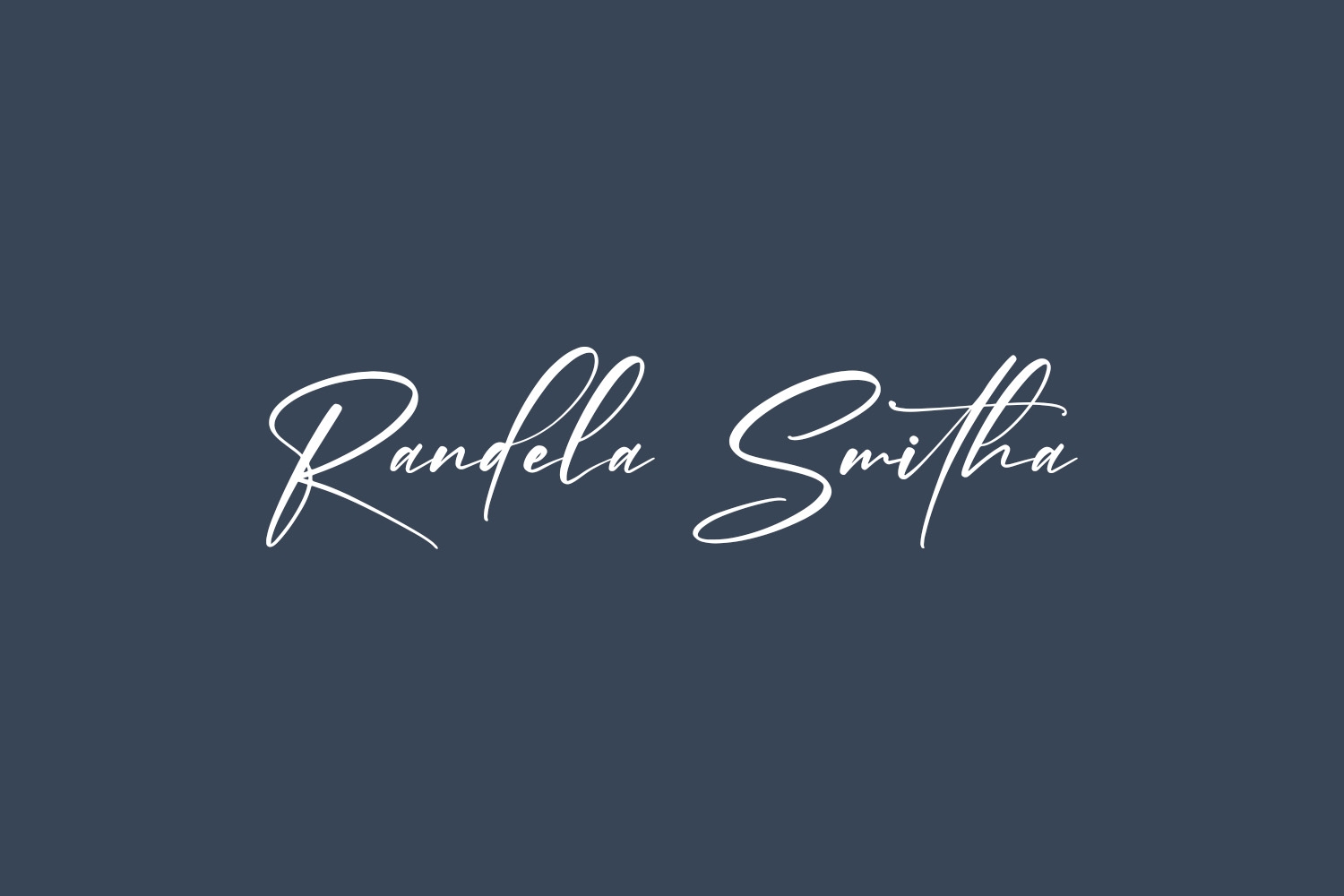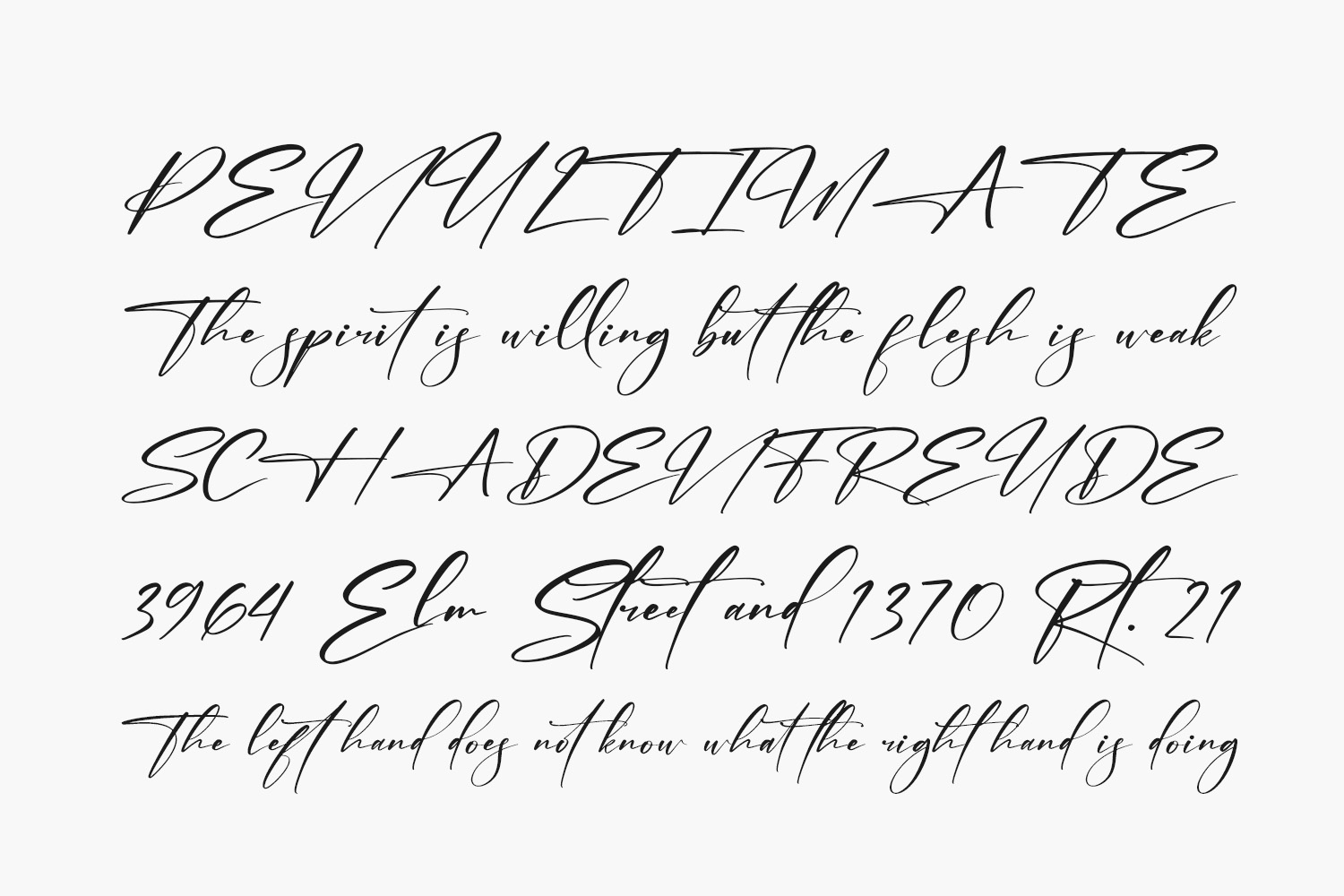
Discover the allure of Randela Smitha Free Font, a captivating handwritten font that brings a touch of romance to your creative projects. This versatile script font can be used for a wide range of applications, from greeting cards to eye-catching headlines. Embrace the enchantment of Randela Smitha in your next endeavor. Randela Smitha Free Font is free for personal use only. Please purchase the full version for commercial use.
Designed by Letterena Studios